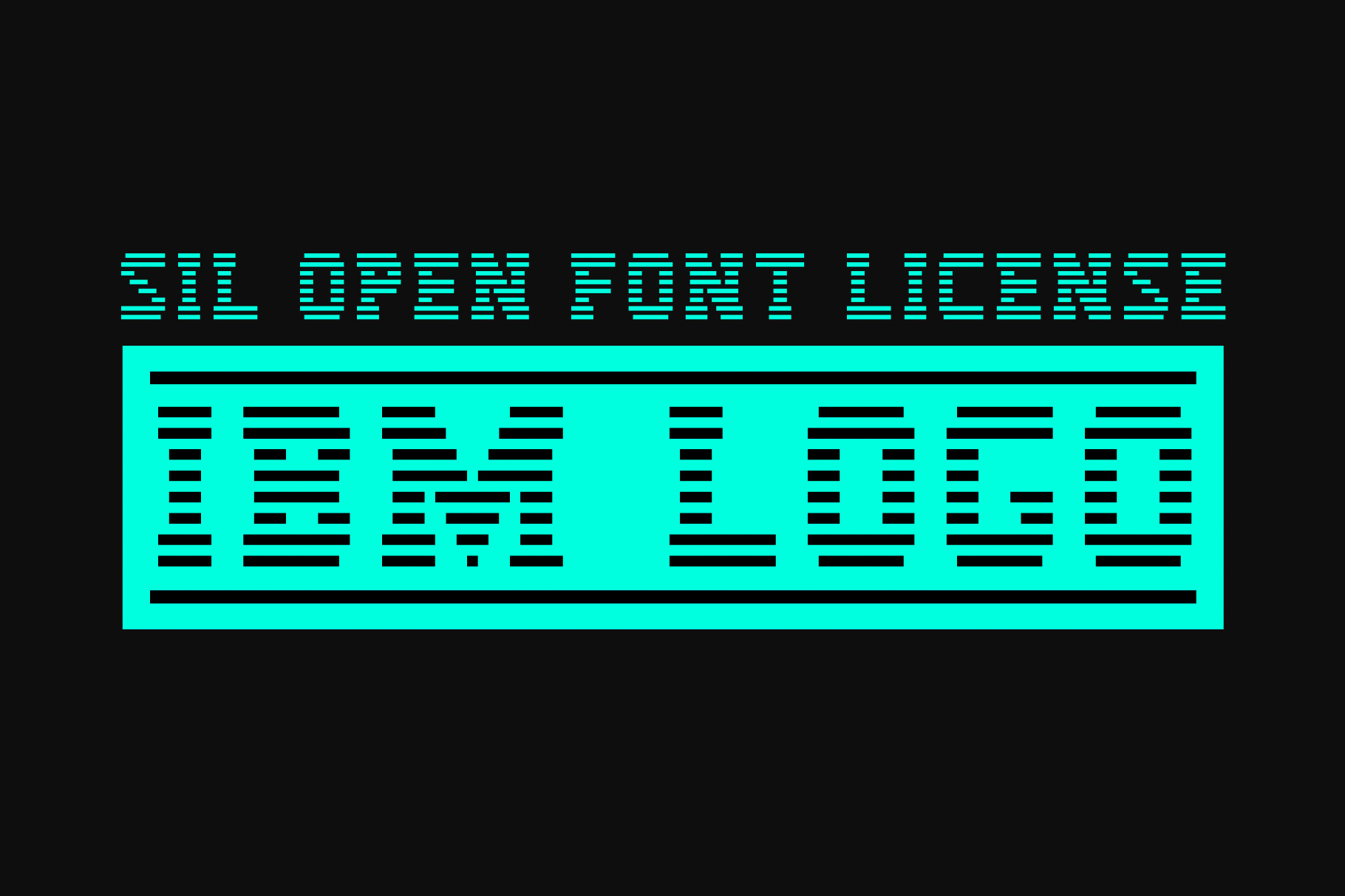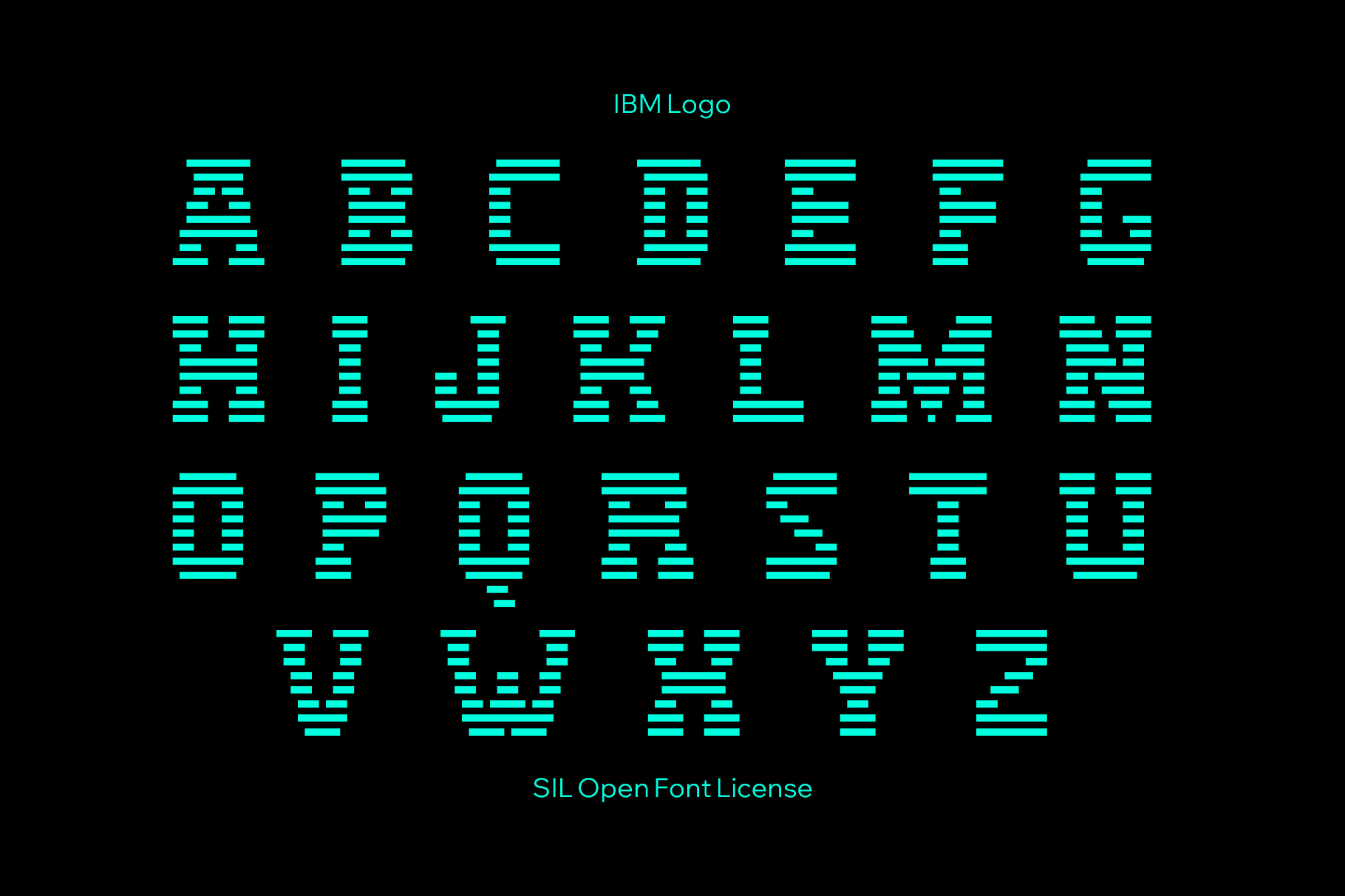
IBM Logo Font
IBM Logo is a rigid, striped display font rooted in corporate modernism, echoing Paul Rand’s International Typographic Style legacy and the early computer age. Each letter is turned at a stack of horizontal bars with a crisp, grid-like rhythm. You can use this font for logo studies, conceptual branding, software mockups, editorial headlines, tech posters, identity experiments, event titles, motion idents, and more.
Included: only uppercase letters A–Z.